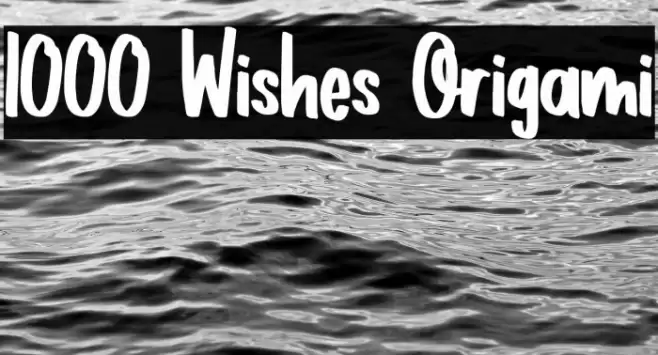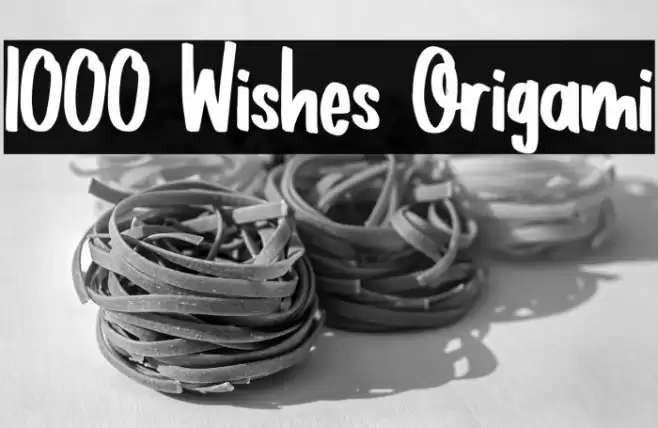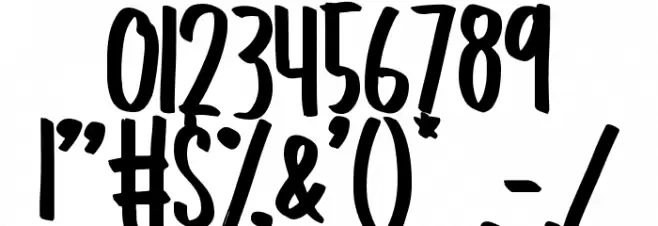
1000 Wishes Origami Font
1000 Wishes Origami Description
This font features a playful and whimsical style, characterized by its bold, rounded letters and slightly irregular shapes. The uppercase and lowercase letters maintain a consistent flow, with a hand-drawn appearance that adds a personal touch. The numbers and special characters are equally expressive, complementing the overall design. The font's unique style makes it ideal for creative projects that require a fun and informal look. Its boldness ensures readability while the quirky design elements add charm and personality.
A playful, bold, and hand-drawn style font with a whimsical touch from Regular fonts.
- Proposed Projects: Ideal for children's books, greeting cards, playful branding, and creative posters.